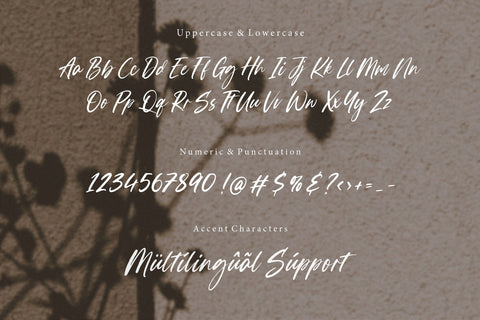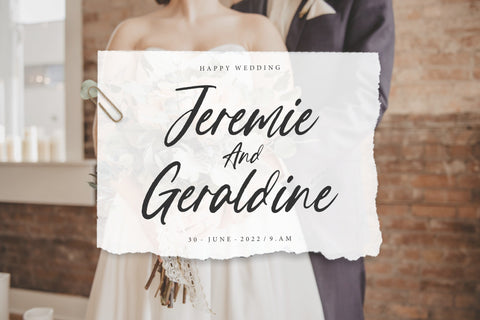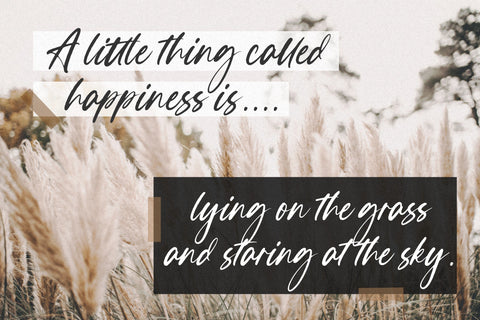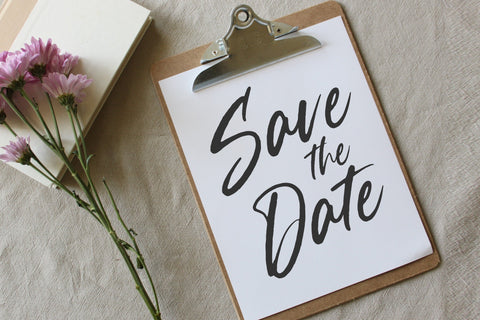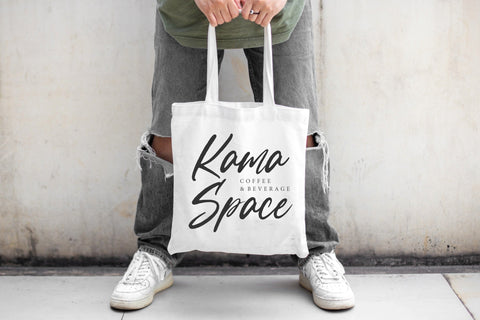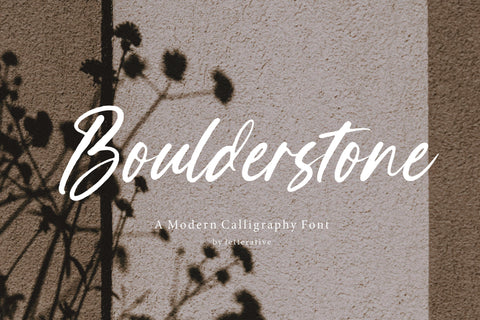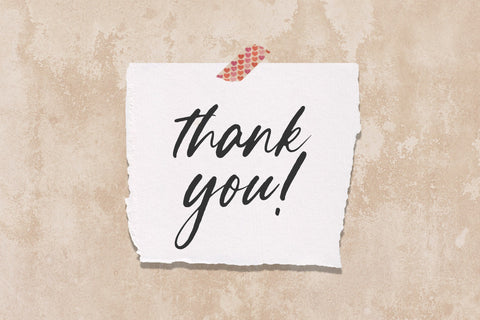
Boulderstone Modern Calligraphy Font
Introducing by Letterative Studio : Boulderstone Font
Boulderstone is a Modern Calligraphy Font
Boulderstone is a unique and elegant handwritten font. It looks beautiful on a variety of designs requiring a personalized style, such as wedding invitations, thank you cards, greeting cards, logos, and so on.
Alpinet also multilingual support